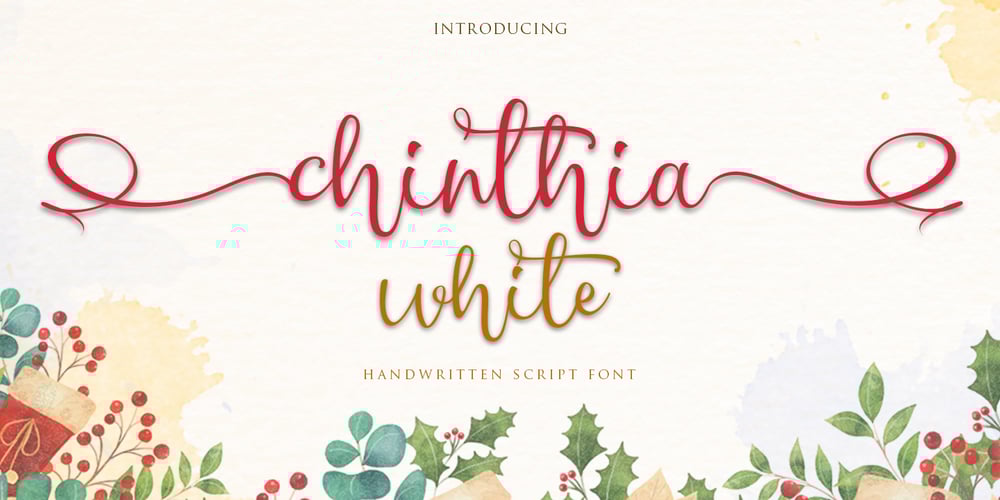
Chinthia White
Chinthia White font
Chinthia White Font Family was designed by Ariefr Munandar and published by dotHK Studio. Chinthia White contains 1 styles and family package options. Chinthia white is a modern calligraphy handwritten font with the current handwriting style, this font is perfect for branding, wedding invites, magazines, mugs, business cards, quotes, posters, and more, you can try first if you want to buy this font.Chinthia white is equipped with 332 glyphs. and by having many of these glyphs there will be able to choose the letters according to your likes, lots of variations and options for each letter, so you can customize on your design choices. To use a variety of flying machines, you need a program that supports OpenType features such as Adobe Photoshop Cs / Adobe Photoshop CC, Adobe Illustrator CS / Adobe Illustrator CC, Adobe Indesign and CorelDraw and many more programs that support OpenType. If you do not have a program that supports OpenType, you can access all the alternate glyphs using Font Book (Mac) or Character Map (Windows) Thanks and happy designing :-)Thank You for purchase!